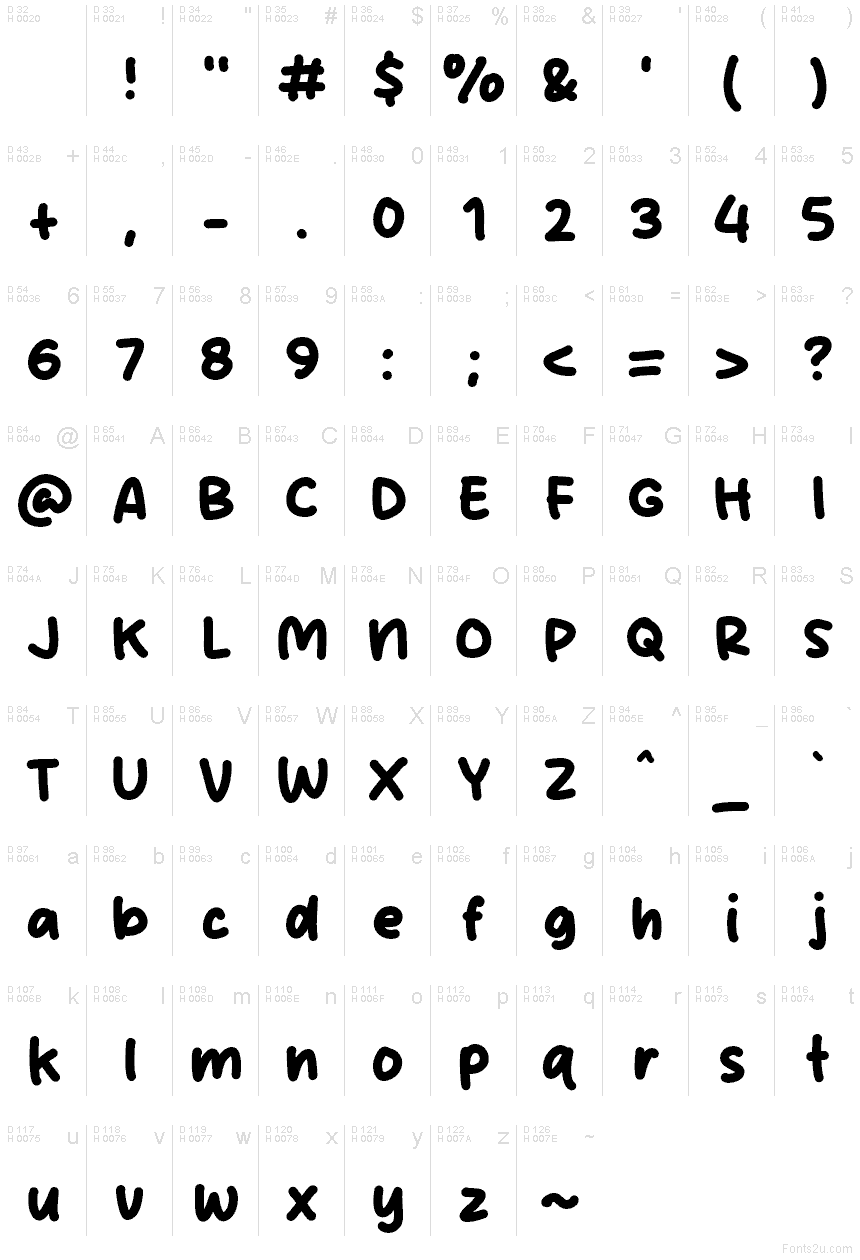
Litte Salty
Litte Salty font by Origin Type is a free handwritten typeface that nails the sweet spot between playful character and clean readability. Its puffed, rounded strokes and steady rhythm give you that friendly, marker-pen vibe without the mess—letters sit with a gentle bounce, but spacing stays calm and consistent. The result: headlines that feel human and warm, yet hold up on busy backgrounds and small thumbnails.
Using Litte Salty, you can brighten kids’ branding, snack or bakery packaging, greeting cards, social posts, stickers, and YouTube thumbnails. The sturdy shapes read fast, while the soft curves add charm and approachability. This free font also layers nicely over photos; pair it with a crisp sans-serif for body copy and keep tracking just a touch open for extra breeziness.